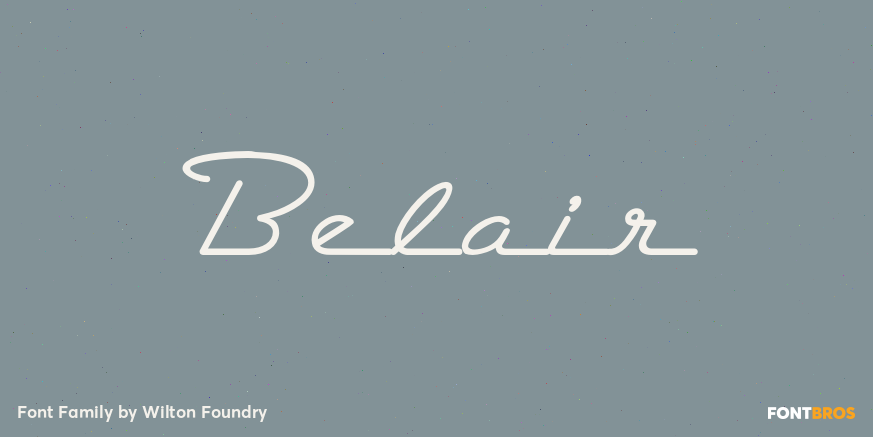
HomeFont BrosRetro (1936-1965)Belair Retro (1936-1965)Scripts: Formal Belair FacebookXPinterestWhatsApp 1 of 1 About Belair It started when someone requested a font based on the 1957 Chevrolet Belair logo. Belair light, Belair Regular and Belair Shadow provide for a nice variety.  DOWNLOAD NOW People also explored Catamaran Font Normaund Font Dinosaur Font Tahiti Sans Font Hello Marvelia Font Southima Font Barosans Font Girlie Font Better Scooter Font 396 0 TagsBelairBelair Font Previous articleSlot Car RegularNext articleBiondi Sans Variable LEAVE A REPLY Cancel reply Comment: Please enter your comment! Name:* Please enter your name here Email:* You have entered an incorrect email address! Please enter your email address here Website: Save my name, email, and website in this browser for the next time I comment. Personal Use Free Banana Valentine Personal Use Free Read more about this font Pinky Personal Use Free Read more about this font Cretino Personal Use Free Read more about this font Numberpile Personal Use Free Read more about this font BLOG Free Fonts Risk: Why Free Fonts Can Be Dangerous for Designers Free Fonts Risk: Why Free Fonts Can Be Dangerous for Designers Using free fonts is a common practice in web and graphic design. However, the... Fonts That Capture the Spirit of New York City Transform Your Website: Elevate Your Typography with 7 Best Web Font Generators Modern Sans-Serif Fonts That Brands Love in 2025